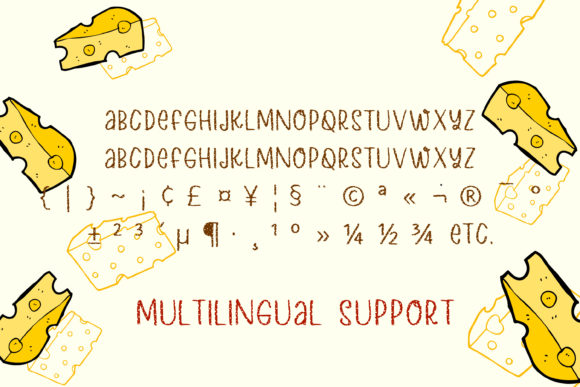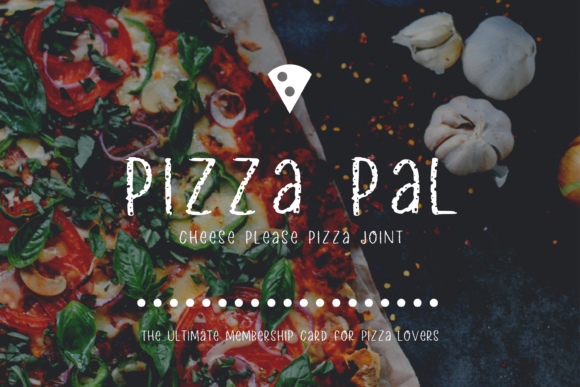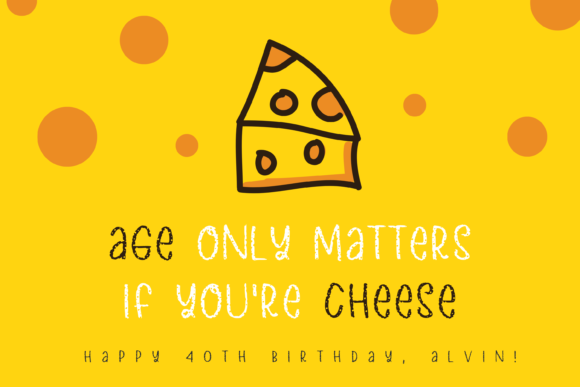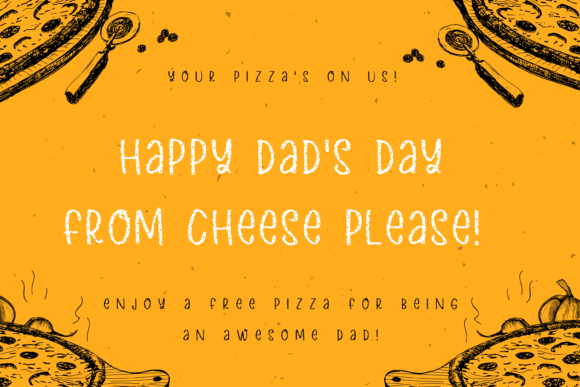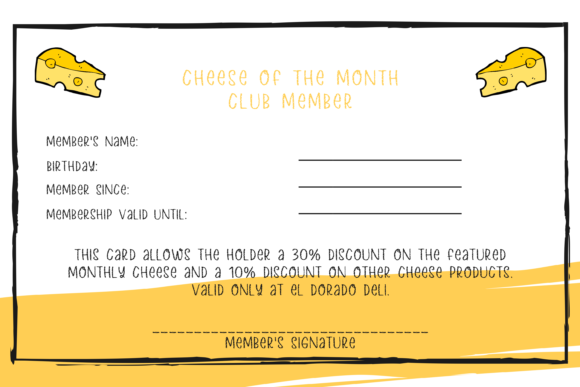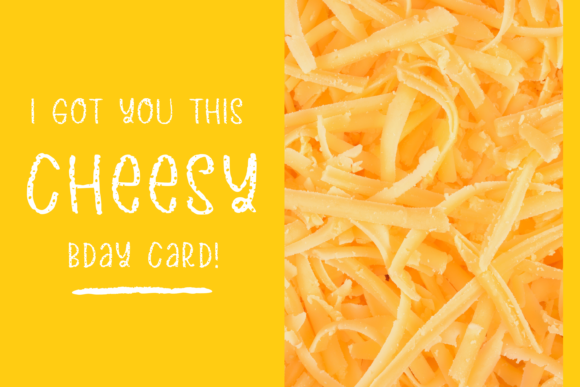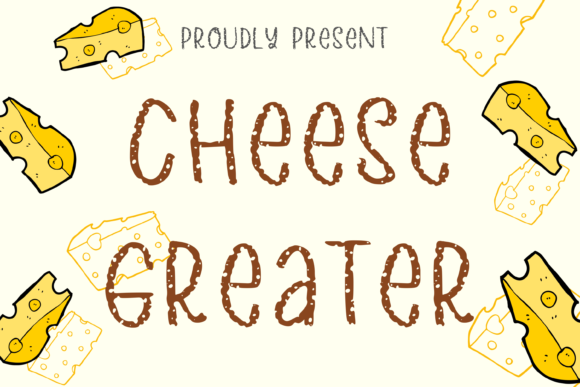
Introducing Cheese Greater Font: The Cute and Genuine Display Font for Creative Minds
Are you a designer, crafter, or DIY enthusiast looking for a font that can add a touch of personality to your projects? Look no further than Cheese Greater Font, a charming and authentic display font that’s perfect for a wide range of designs. With its natural and unique style, Cheese Greater Font is sure to inspire your creativity and take your projects to the next level.
The Unique Charm of Cheese Greater Font
Cheese Greater Font is a one-of-a-kind display font that boasts a cute and genuine style. Its natural and effortless look makes it incredibly fitting for a large pool of designs, from playful and whimsical to elegant and sophisticated. The font’s unique character is sure to capture the attention of your audience and leave a lasting impression.
One of the standout features of Cheese Greater Font is its versatility. Whether you’re designing a logo, creating a social media graphic, or crafting a handmade project, this font is sure to adapt to your needs. Its flexibility and charm make it an excellent choice for designers and crafters who want to add a personal touch to their work.
Endless Possibilities with Cheese Greater Font
The only limit to what you can create with Cheese Greater Font is your imagination! This font can be used for a wide range of projects, including:
- Logos and branding materials: Add a touch of personality to your logo and branding materials with Cheese Greater Font’s unique and charming style.
- Social media graphics: Create eye-catching social media graphics that stand out from the crowd with this font’s natural and effortless look.
- Handmade projects: Add a personal touch to your handmade projects, such as scrapbooking, card making, and DIY crafts, with Cheese Greater Font’s whimsical and playful style.
- Signs and posters: Create eye-catching signs and posters that grab attention with this font’s bold and charming character.
Why Choose Cheese Greater Font?
So why choose Cheese Greater Font over other display fonts? Here are just a few reasons why this font stands out:
- Unique and charming style: Cheese Greater Font’s natural and effortless look sets it apart from other display fonts.
- Versatility: This font can be used for a wide range of projects, from logos and branding materials to handmade projects and social media graphics.
- Easy to read: Despite its playful and whimsical style, Cheese Greater Font is easy to read and understand, making it perfect for use in a variety of contexts.
Tips for Using Cheese Greater Font
To get the most out of Cheese Greater Font, here are a few tips to keep in mind:
- Use it sparingly: While Cheese Greater Font is perfect for headlines and titles, it’s best to use it sparingly to avoid overwhelming your design.
- Pair it with other fonts: Experiment with pairing Cheese Greater Font with other fonts to create a unique and visually appealing combination.
- Experiment with colors: Don’t be afraid to experiment with different colors and textures to add depth and interest to your design.
Cheese Greater Font is a charming and genuine display font that’s perfect for designers, crafters, and DIY enthusiasts who want to add a touch of personality to their projects. With its natural and unique style, versatility, and ease of use, this font is sure to inspire your creativity and take your projects to the next level. So why wait? Download Cheese Greater Font today and start creating something amazing!